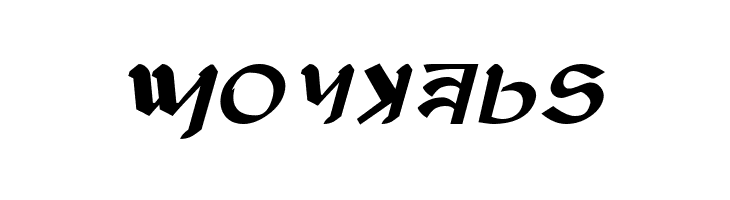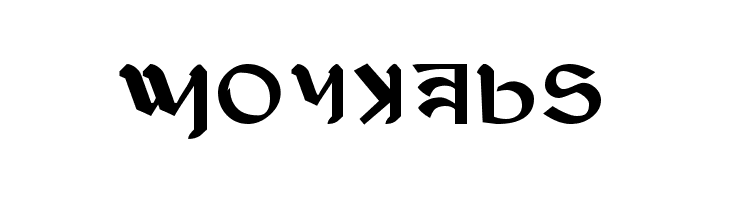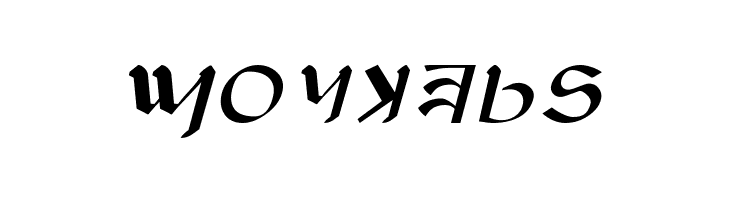
A bold, geometric font with sharp edges and a modern-traditional blend.
A bold, italicized font with dynamic slant and angular design.
A dynamic italic font with sharp serifs and a modern, artistic style.